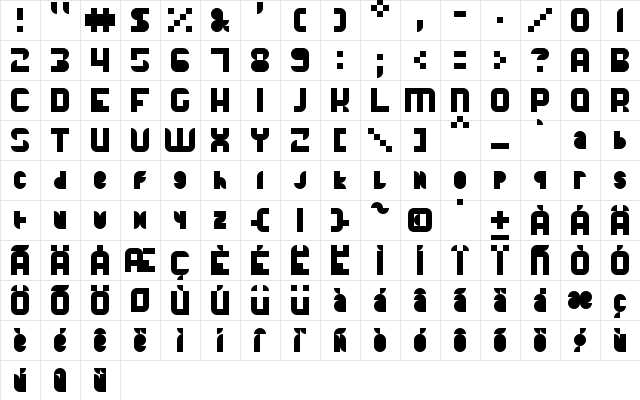
wttm#01 Regular
| Designer | steric |
Design Context for wttm#01 Typeface
wttm#01 is a composed and adaptable typeface that performs quietly and consistently across a wide range of design contexts.